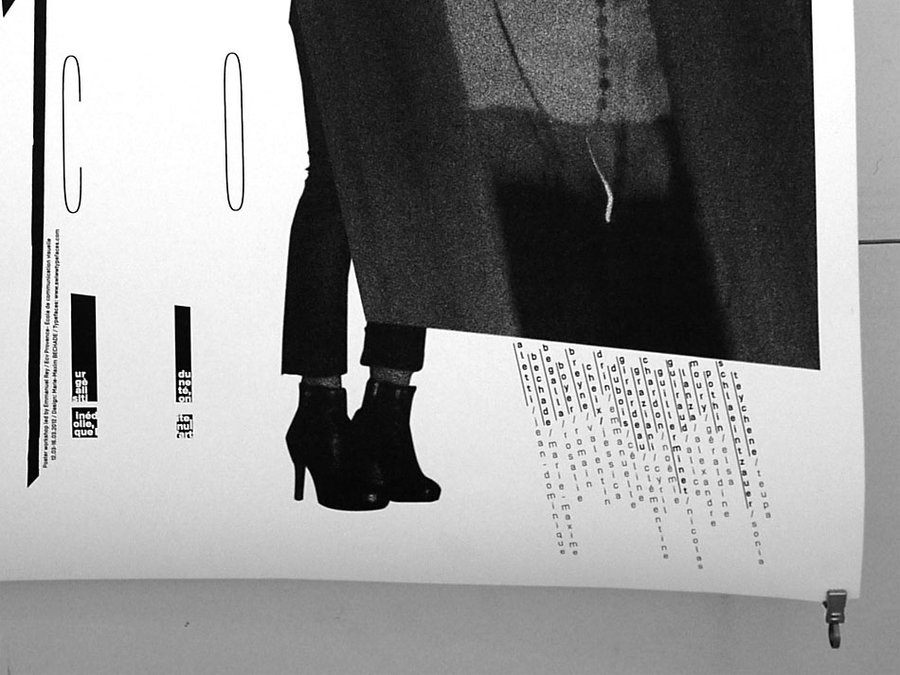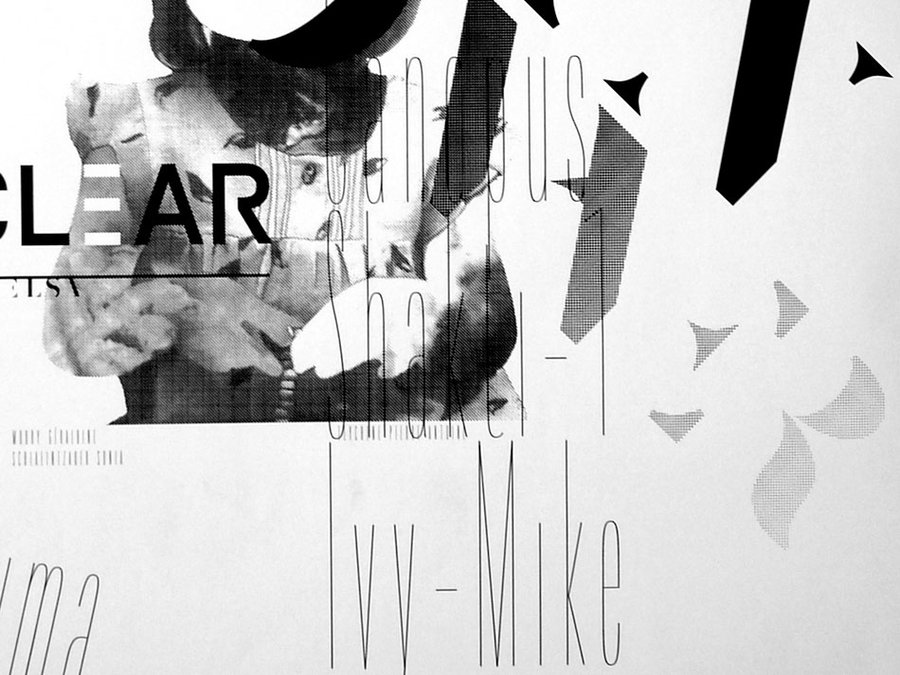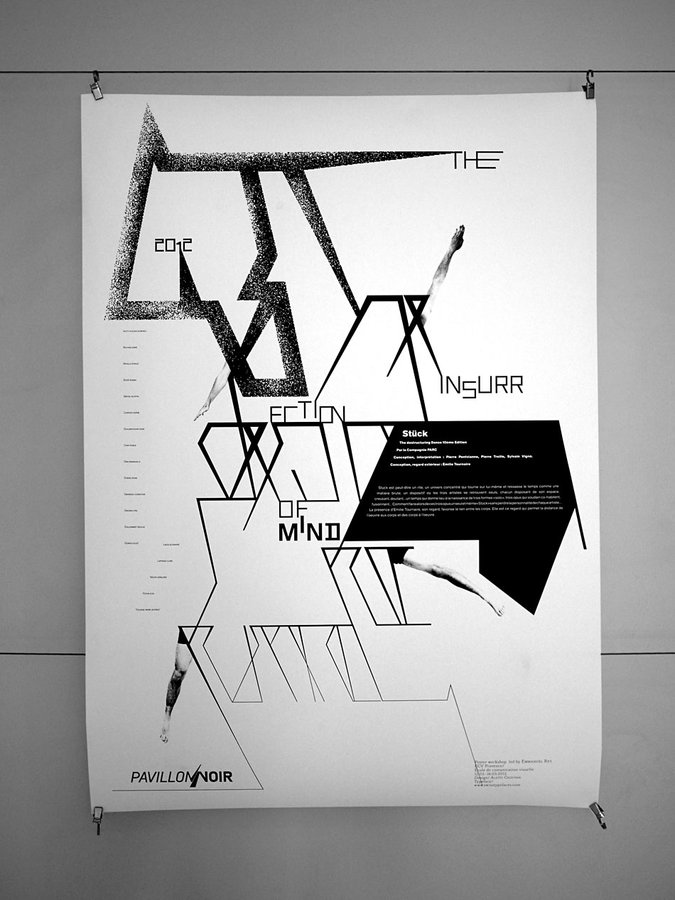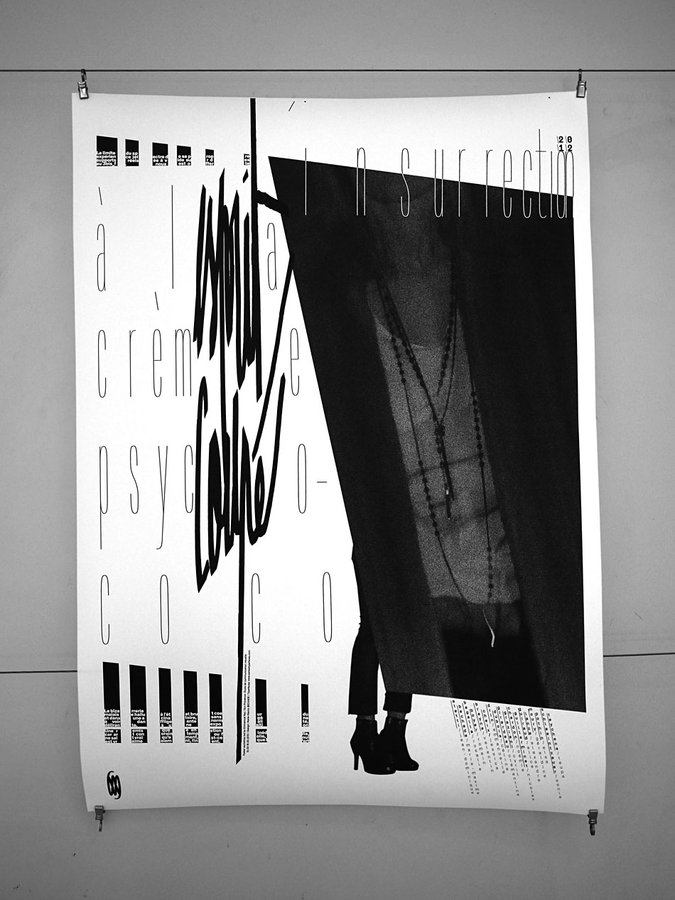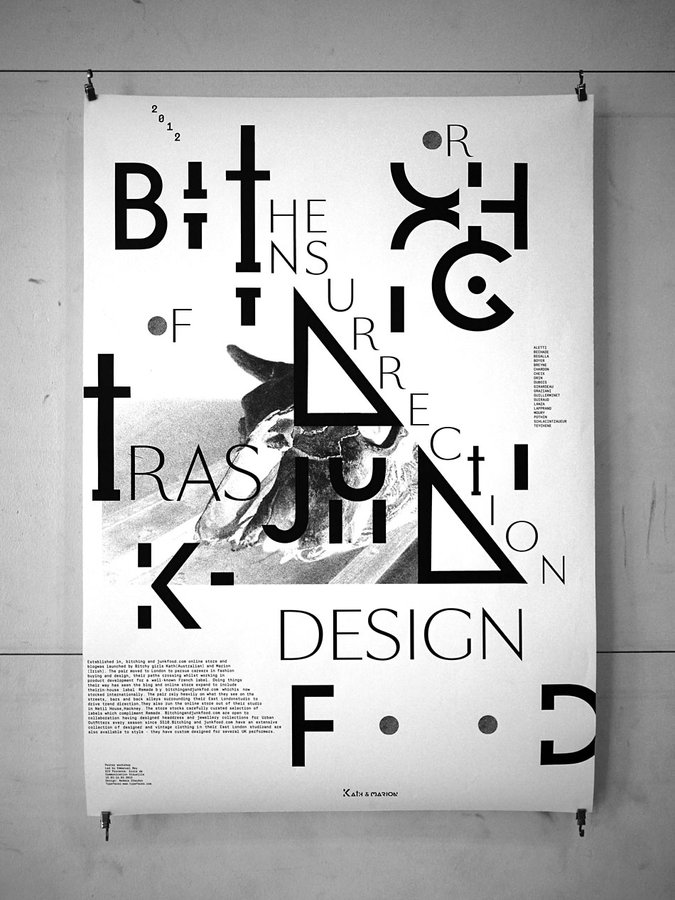
Some iPhone pics taken at the masters exhibition at ECAL/University of art and design Lausanne: Art Direction: type design, photography.
Quick snapshots taken walking through the bachelor works at ECAL/University of art and design Lausanne, one day before the jury.
3 new privates weights to SangBleu, those weights will be available in 2013 or early 2014. We are going to merge Romain and SangBleu as a big family with text, headline, and the sans version. New drawing, new weights, more gliff, more punch!
More view of the private typeface for Baku International magazine.
design by Ian Party
Baku – a visually striking, off–beat magazine covering contemporary art, culture and fashion, with a link to Azerbaijan.
Baku will be release as a super Didot family mix with L'Officiel. no date of release yet.
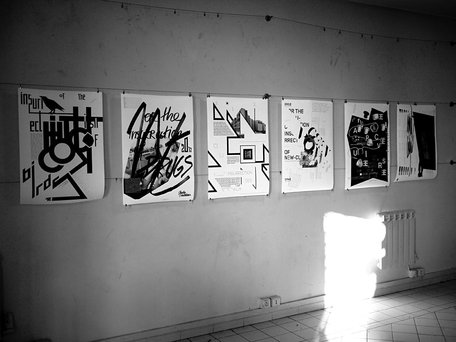
This year, I was invited for the 3rd time to lead a 5 days workshop for master students at ECV Provence.
I asked the students to design a black/white DIN A1 poster. They had to use typography as the main tool to produce the visual (words are the image).
The headline had to be an original design or a modified font and to play with legibility: I wanted them to experiment and produce something else than consensual "typography on photography" posters or "big fonts on neutral background" minimalist designs.
The way they were authorized to use images was strictly defined: it had to bring something to the typographic layout.
The whole process of designing the poster and fonts was based on my own practise.
Posters, in order of appearence:
01. Noémie Chardon, "Bitching, Jung Food, or the insurrection of trash design"
02. Ghjuvan Dumenicu Aletti, "The destructuring: the insurrection of mind"
03. Marie Bechade, "Esprit coupé: l'insurrection à la crème psycho-coco"
04. previous poster (detail)
05. Emmanuelle Drin, "Hitchcok, or the insurrection of birds"
06. Cyril Graziani, "Non discours, ou l'insurrection des maux"
07. Clara Lapprand, "Art, or the insurrection of drugs"
08. Jessica Cheix, "Elixir libre, ou l'insurrection des roses"
09. Elsa Pothin, "Green power, or the insurrection of new-clear"
10. previous poster (detail)
11. Alice Guiraud, "The attractive universe, or the insurrection of the scientific photography"
12. Géraldine Moury, "Pleure pas Lolie, ou l'insurrection absurde"
Typefaces used/modified: Simplon BP, Romain BP, Suisse BP, SangBleu BP